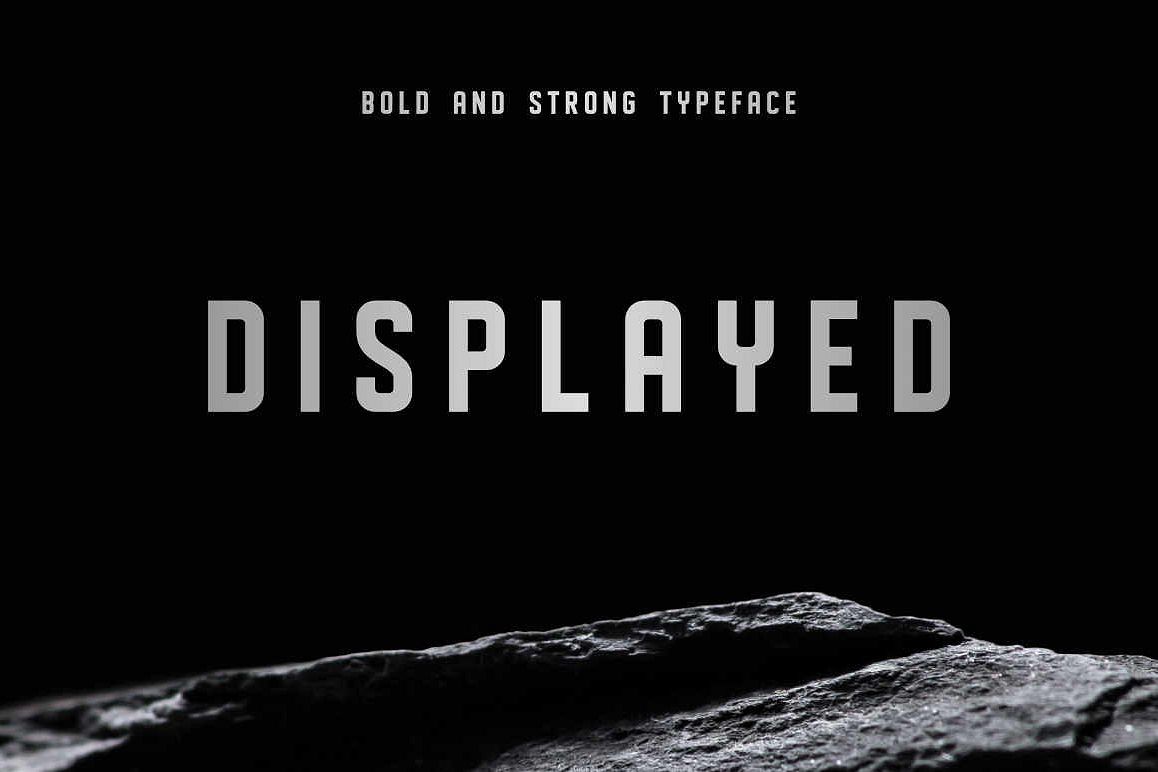
Created By andika fez
DISPLAYED FONT
DISPLAYED Typeface is a bold and strong typeface that suits for any creative projects such as Headline, Title, Text Header, Advertising, Magazine Layout, Logo and many more.
DISPLAYED Typeface also comes in OBLIQUE AND OUTLINE version it means you can create your project looks great with no effort. All Characters set in uppercase.Best Regards, Andika Fez